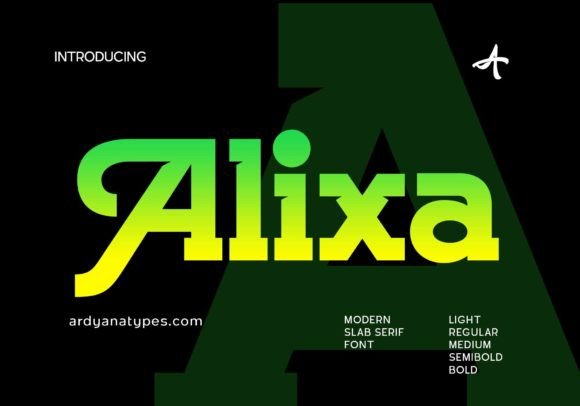
Looking for the perfect font to bring your design projects to life? Look no further than Alixa, the stunning slab serif font from ardyanatypes. With its bold lines and sharp angles, Alixa is the ideal choice for anyone looking to make a statement with their typography.
One of the standout features of Alixa is its versatility. While it was specifically designed with music sheet in mind, it can be used for so much more. Whether you're creating a logo, a headline, or any other design element, Alixa is sure to grab your audience's attention.
But Alixa isn't just eye-catching. It's also incredibly stylish and fashionable, with a modern and contemporary vibe that will elevate any project. Each letter has been carefully crafted to be both attractive and legible, making it a great choice for both digital and print designs.
So why should you download Alixa? The answer is simple: it's the best font for music sheet and so much more. With its bold and stylish design, it's sure to make your projects stand out from the crowd. Whether you're a designer, musician, or anyone else looking for a font that combines style and functionality, Alixa is the perfect choice.